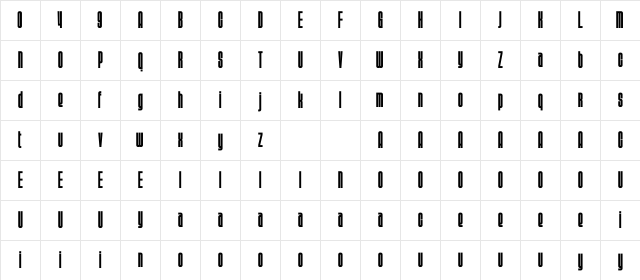
Design Context for Aisling Free Demo
Aisling Free Demo is a composed and adaptable typeface that performs quietly and consistently across a wide range of design contexts.